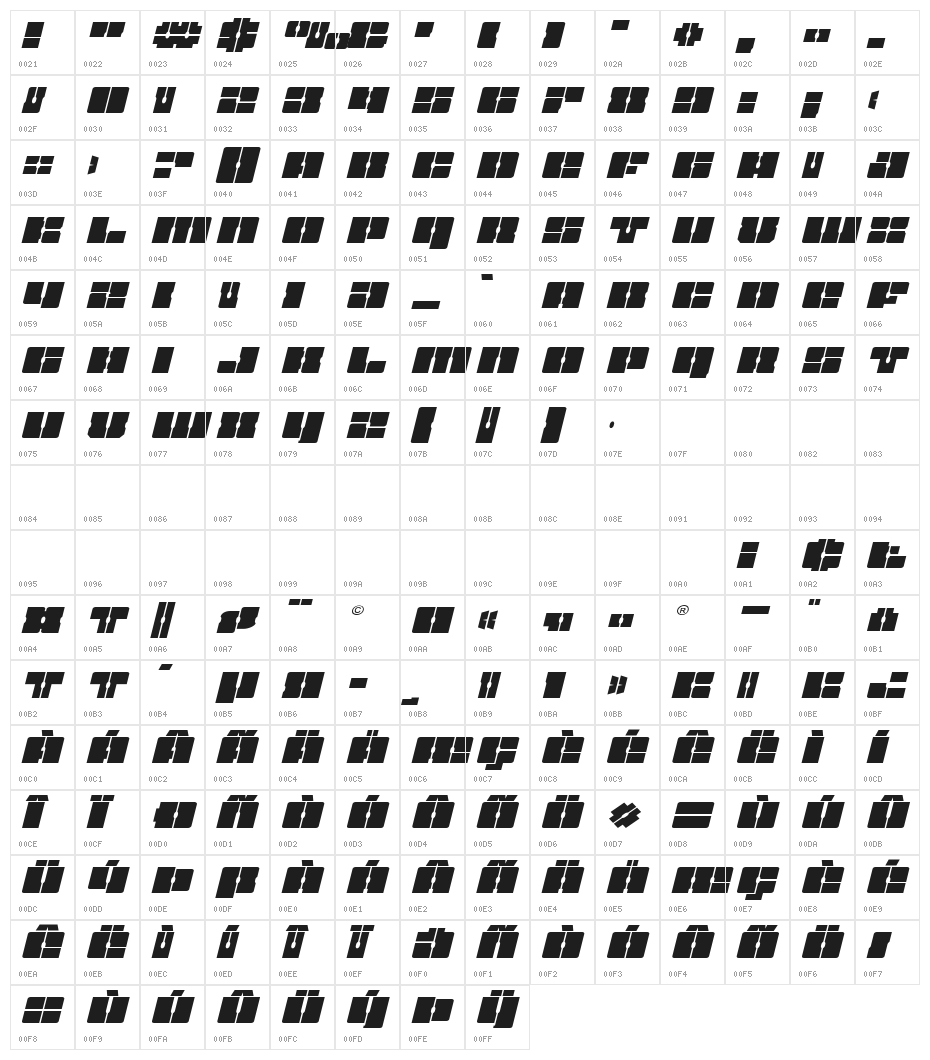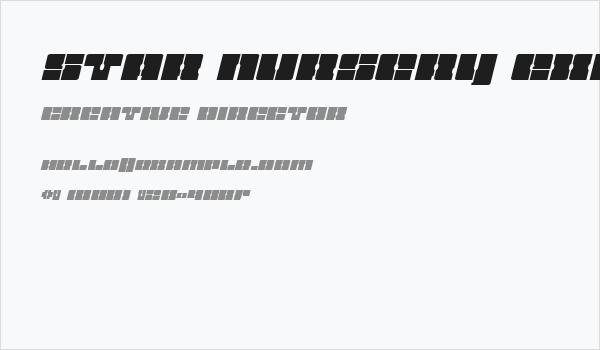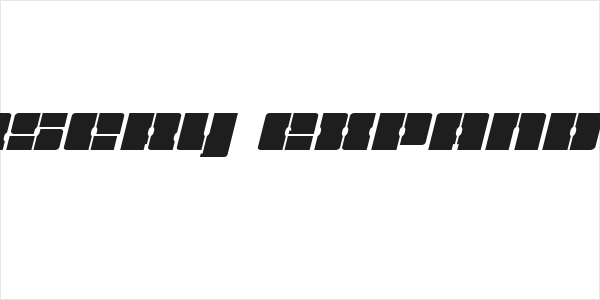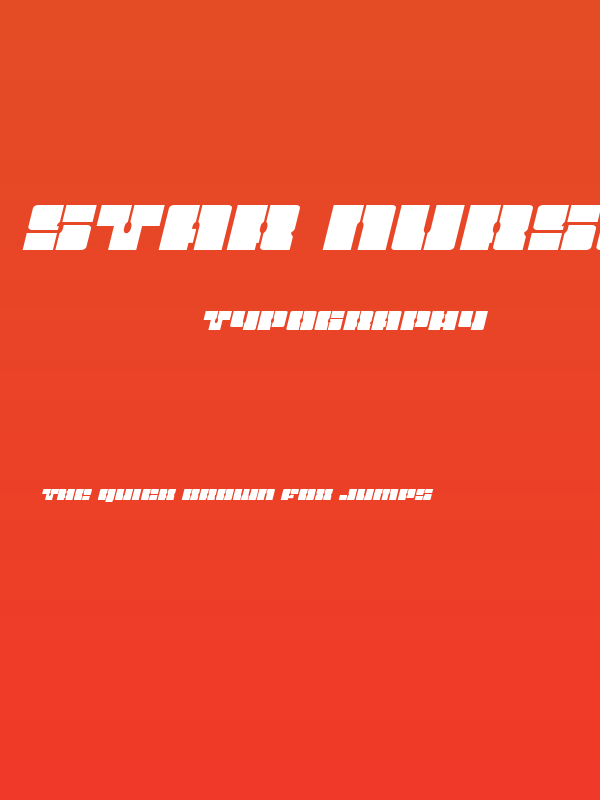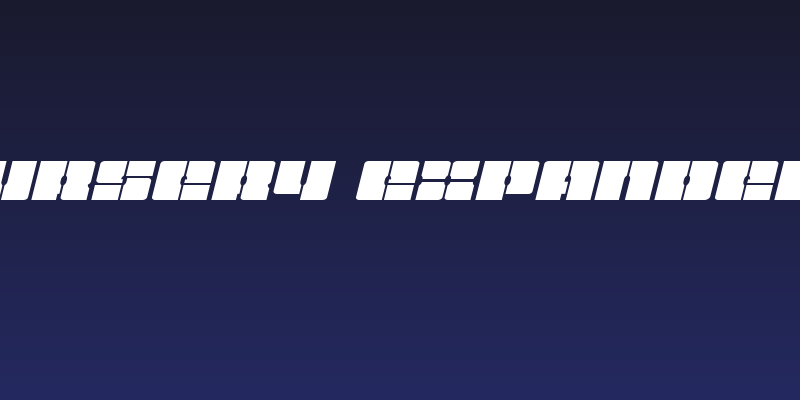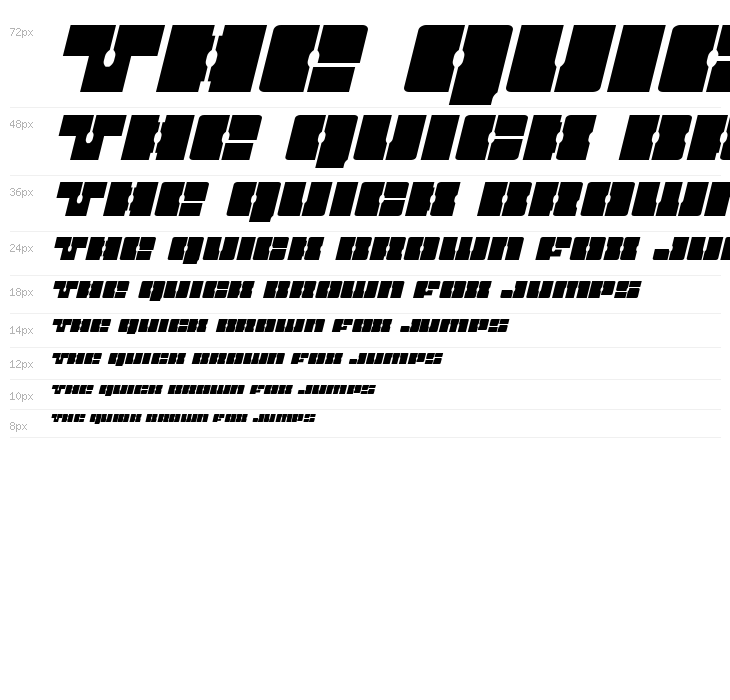
Star Nursery Expanded Italic Font
Star Nursery Expanded Italic Description
This font features a bold, geometric design with a futuristic flair. The characters are constructed with thick, block-like shapes that are slightly expanded, giving them a strong presence. The italic slant adds a dynamic and forward-moving feel, enhancing its modern aesthetic. Each letter is distinct, with sharp angles and a consistent stroke width, contributing to a cohesive and impactful appearance. The font's style is reminiscent of digital or sci-fi themes, making it suitable for projects that require a bold and contemporary look.
Proposed ProjectsIdeal for sci-fi themed posters, video game titles, tech branding, and futuristic event flyers.